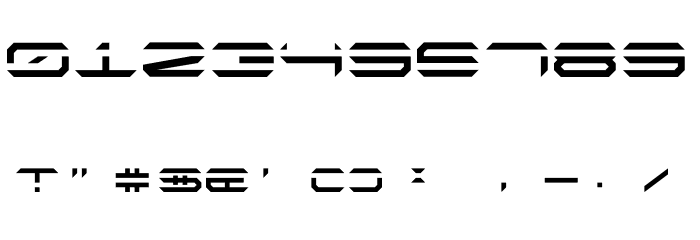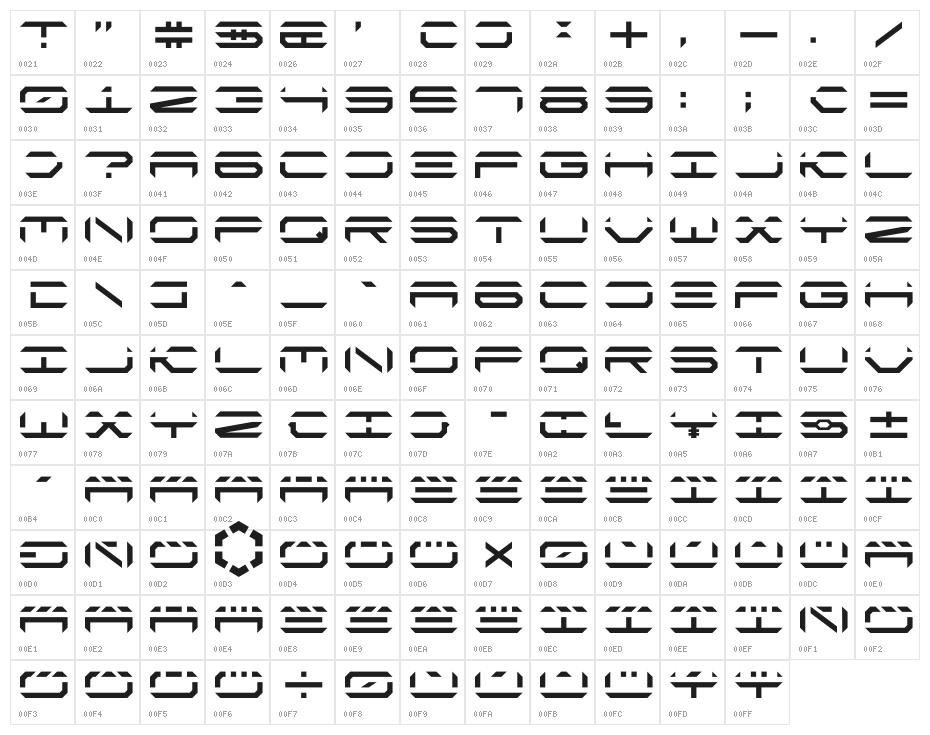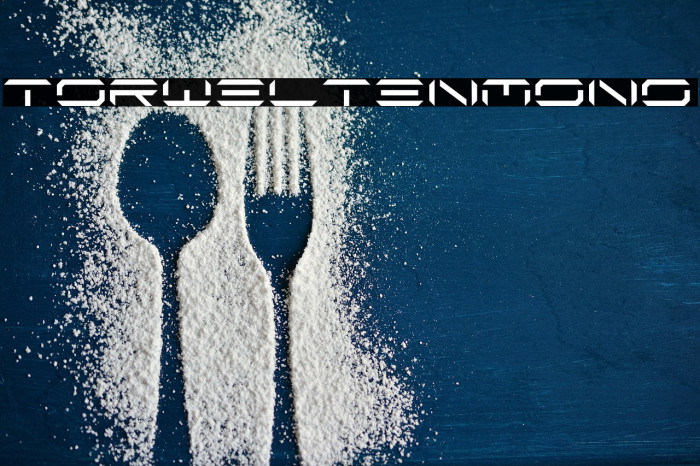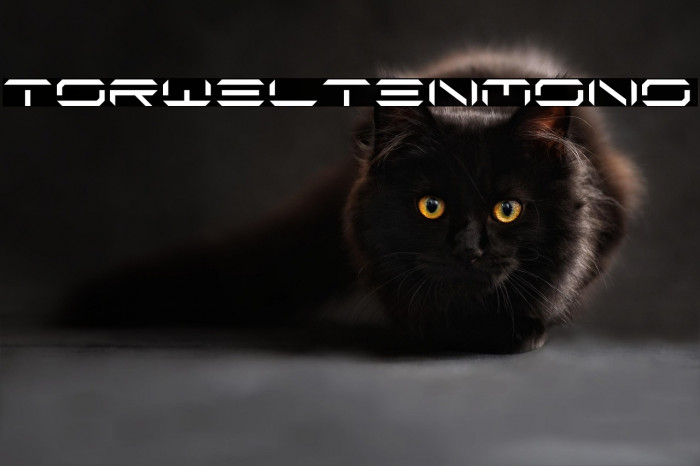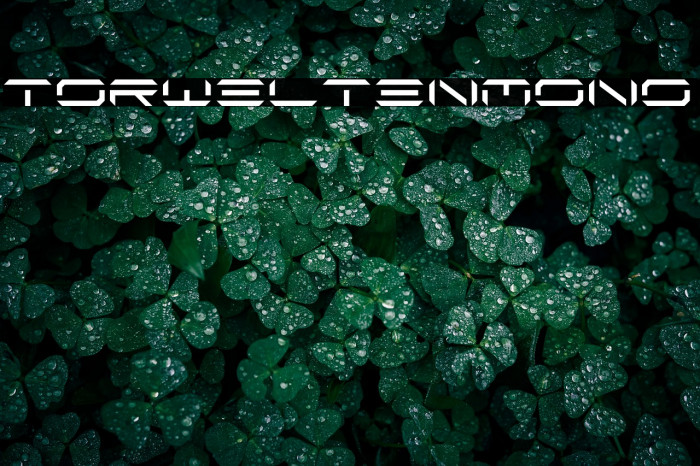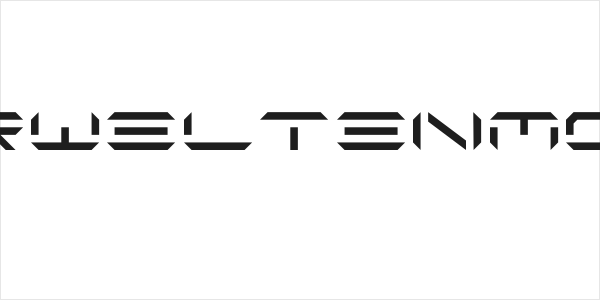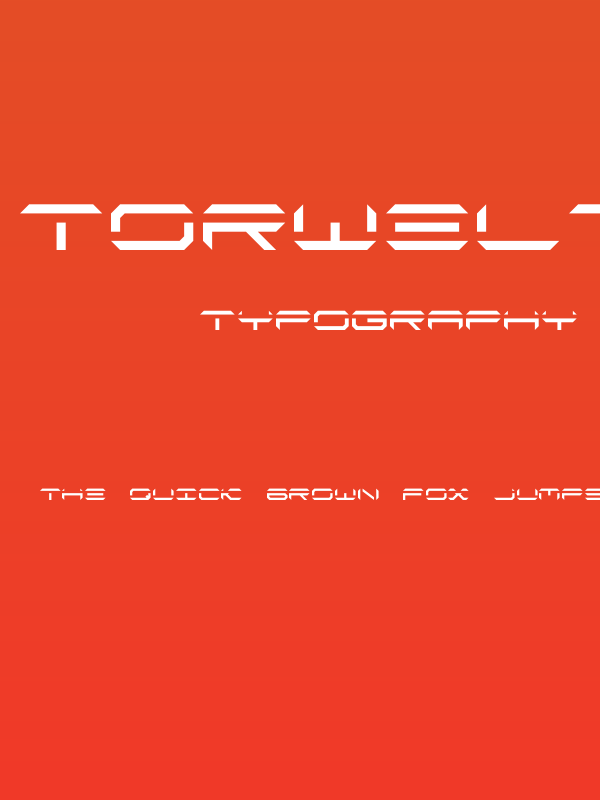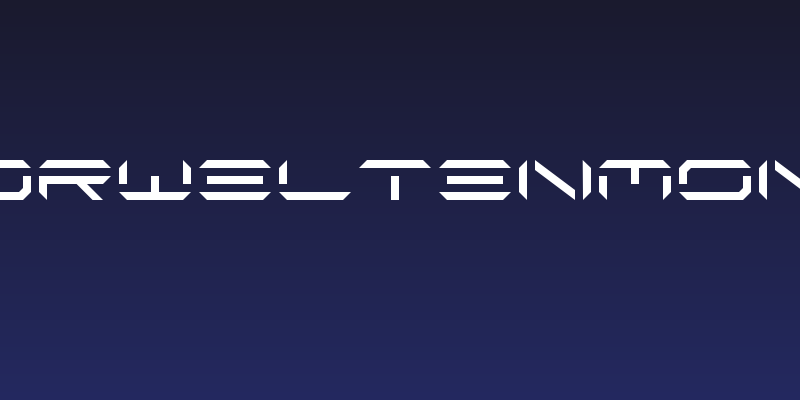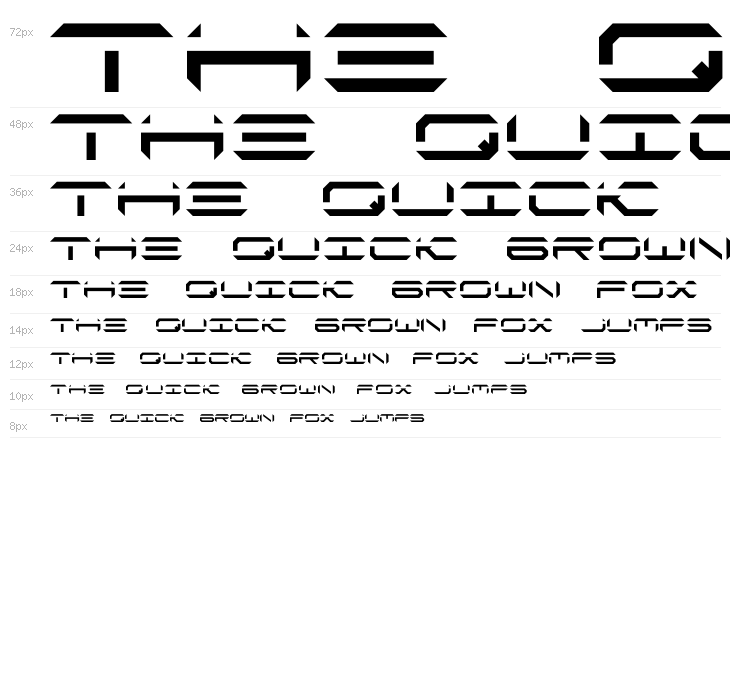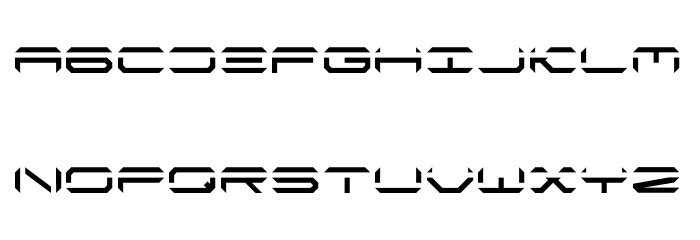
TorweltenMono Font
TorweltenMono Description
This font features a futuristic and geometric design with a monospaced structure. Each character is crafted with sharp angles and a consistent width, giving it a mechanical and digital appearance. The strokes are uniform, with a medium contrast that enhances readability while maintaining a distinct style. The font's unique cutouts and angular shapes make it stand out, suitable for tech-oriented projects. It combines a modern aesthetic with a touch of retro-futurism, making it ideal for conveying innovation and technology.
| Use Case | Logos, Headlines, Digital interfaces |
| Proposed Projects | Ideal for tech branding, digital interfaces, coding environments, and sci-fi themed designs. |